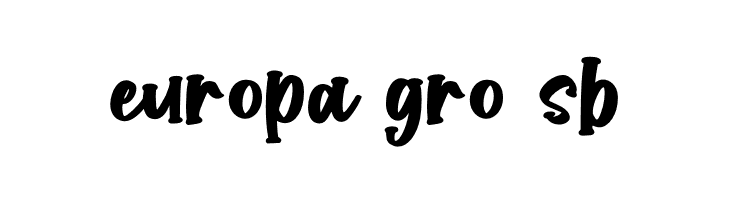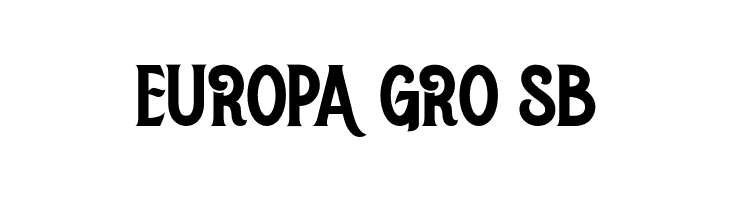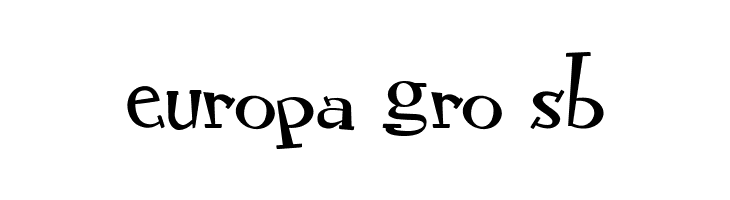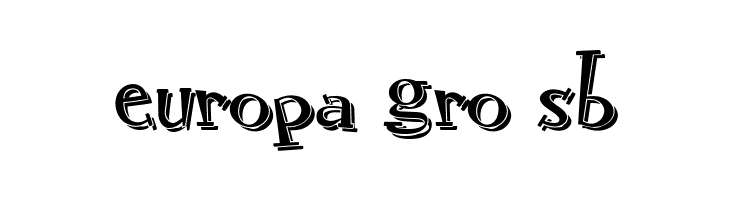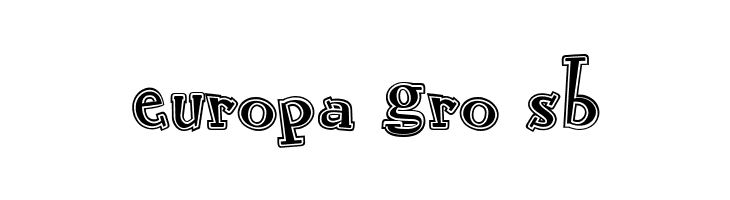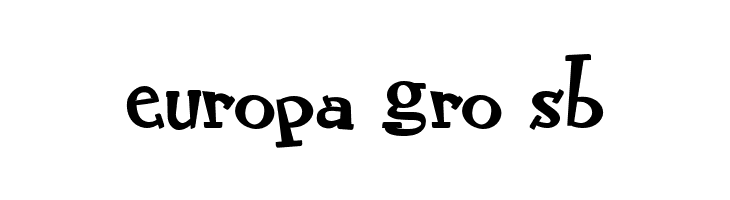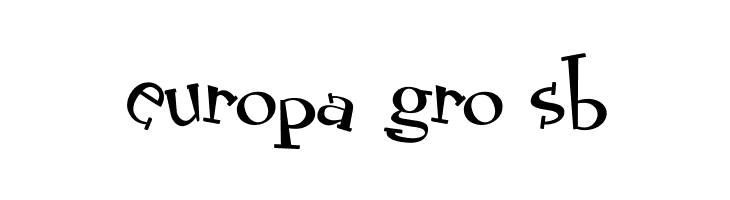
A bold and dynamic font with playful curves and strong presence.
( Fonts by Revo Farisky )
A bold, expressive handwritten font with playful curves and thick strokes.
( Fonts by Otto Maurer Design )
A playful and dynamic font with whimsical, irregular letterforms.
( Fonts by Otto Maurer Design )
A bold, playful font with a three-dimensional outlined effect.
( Fonts by Otto Maurer Design )
A bold, playful font with dynamic and irregular letterforms.
( Fonts by Otto Maurer Design )
A bold, outlined font with a playful, collegiate style.
( Fonts by Otto Maurer Design )
A playful and whimsical font with irregular, dynamic letterforms.
( Fonts by Otto Maurer Design )
A bold, decorative font with a vintage shadow effect, ideal for retro-themed designs.
( Fonts by Otto Maurer Design )
A whimsical and playful font with quirky details and bold strokes.
( Fonts by Otto Maurer Design )
A bold, decorative font with star motifs on each character.